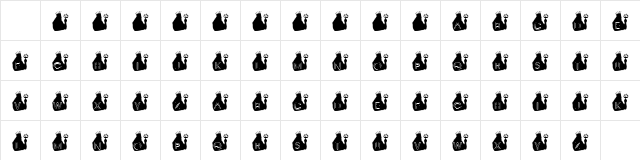
KR Triton Regular Free Font
KR Triton Regular
Design Context for KR Triton
KR Triton is a composed and adaptable typeface that performs quietly and consistently across a wide range of design contexts.